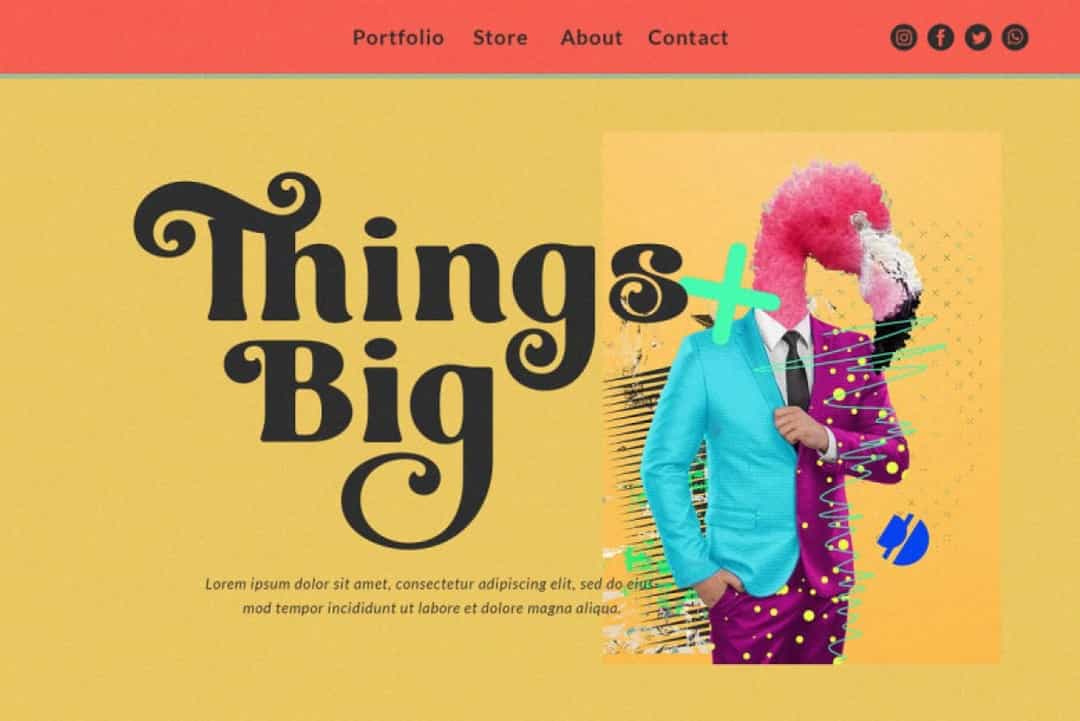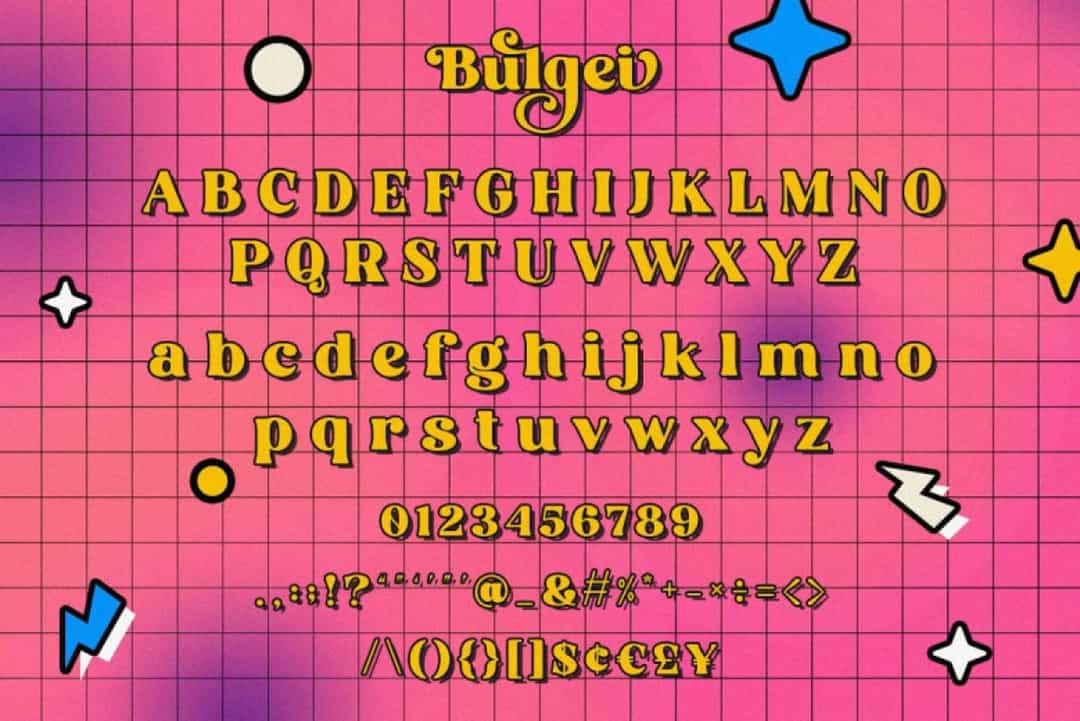
Bulgei is an elegant vintage serif font. Perfect for use as a display font for logos, headings advertising magazines product packaging invitations. Bulgei’s smooth lines and smooth curves add quality. Add stylish sophistication elegance retro and contemporary styles to your designs using this font!